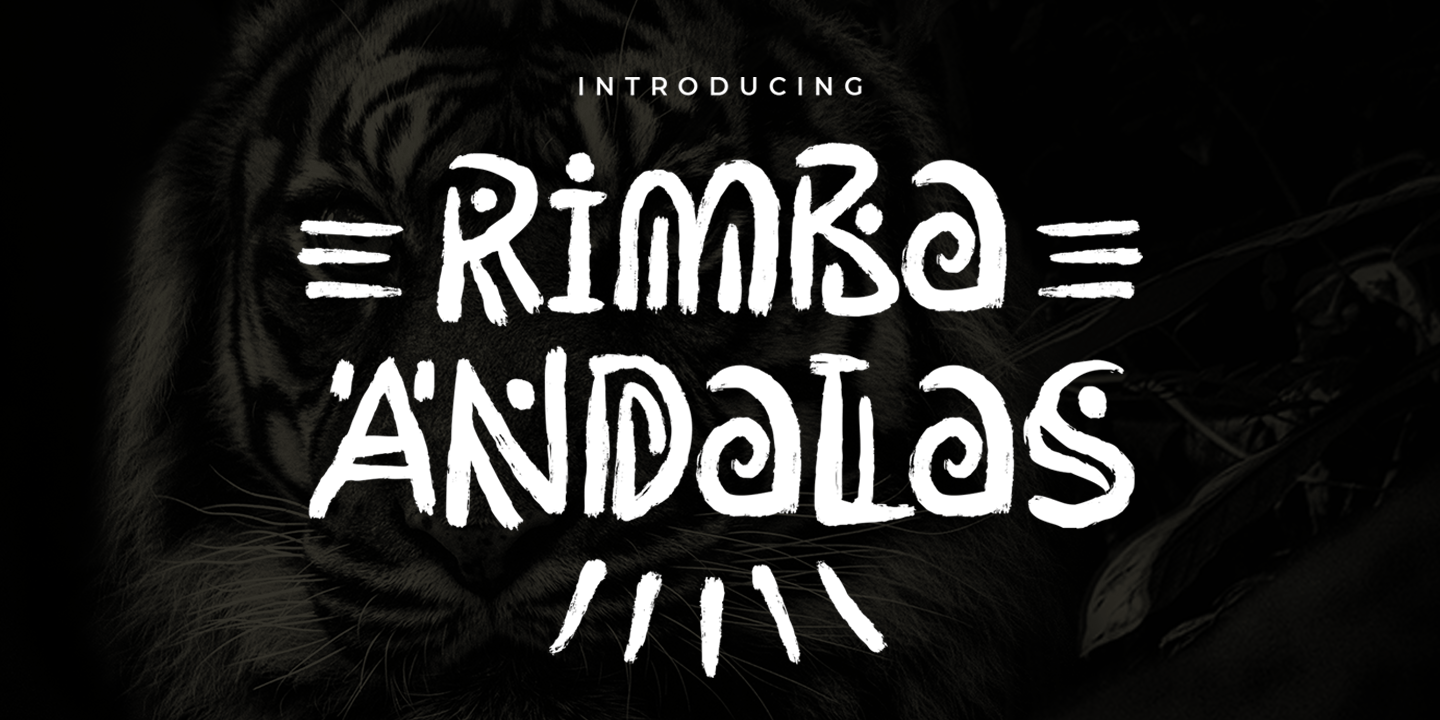
The Rimba Andalas Font is an exceptional choice for design projects seeking an organic, adventurous, and authentic feel. Envision it bringing a bold presence to branding for outdoor adventure companies, giving a rugged yet refined look to packaging for natural health products, or creating striking headlines for environmental initiatives. It's also perfectly suited for captivating poster designs, distinctive T-shirt graphics, and any visual content that aims to evoke a sense of the wild, untamed nature, or handcrafted artistry. Its unique character makes it ideal for logos, book covers, and social media campaigns that need to stand out with an earthy, compelling vibe.
What makes Rimba Andalas Font truly exciting is its remarkable ability to blend raw, natural aesthetics with a surprisingly polished readability. It often features textures or forms that mimic the imperfections and beauty found in nature, giving it a distinctive and memorable personality. This font communicates a story of exploration, resilience, and connection to the earth, instantly adding depth and character to your designs. Its unique letterforms and often textured appearance create a tactile visual experience, making it feel both ancient and modern, a truly captivating combination.
The Rimba Andalas Font family typically offers a range of options to enhance its versatility. While specific family members can vary, you might expect to find different weights, from a lighter, more subtle version to a heavier, more impactful one. It could also include distressed styles, alternative characters, or even italic versions to provide designers with ample choices for creating dynamic and cohesive visual narratives. These variations ensure that the font can be adapted to various design scales and purposes while maintaining its core adventurous spirit.